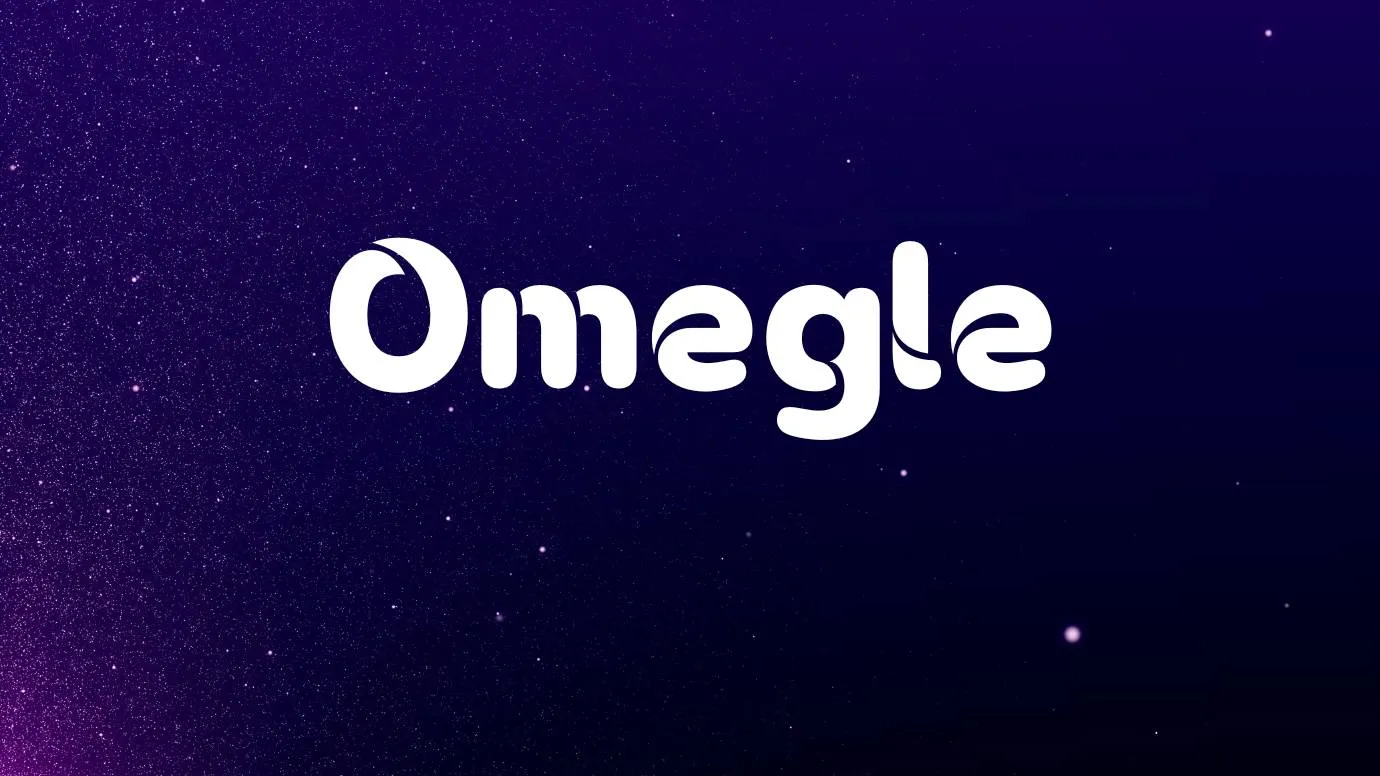
Omegle Font Family
Omegle Font Family is a very unique and attractive display type font and it was designed by 177 Studios. You can make all personal and commercial projects by using this font as it has high readability and can be read even from a distance.
You can also use this font for pairing with other fonts such as Playfair display font to give a more attractive and elegant look to your projects. The look of this font is very attractive and unique and it is perfect for logos for different brands.
Omegle Font